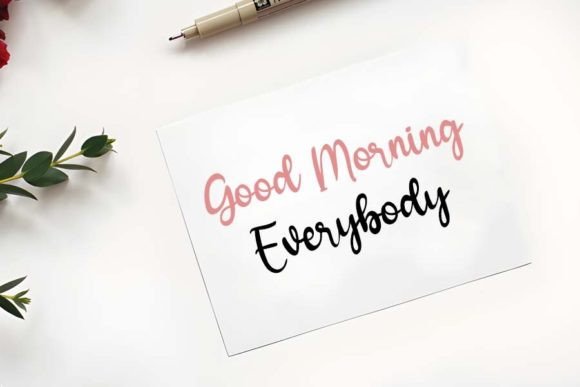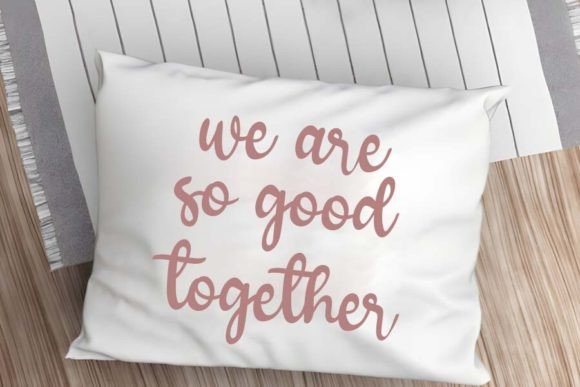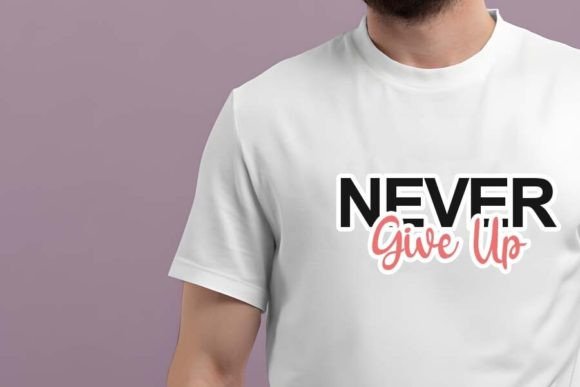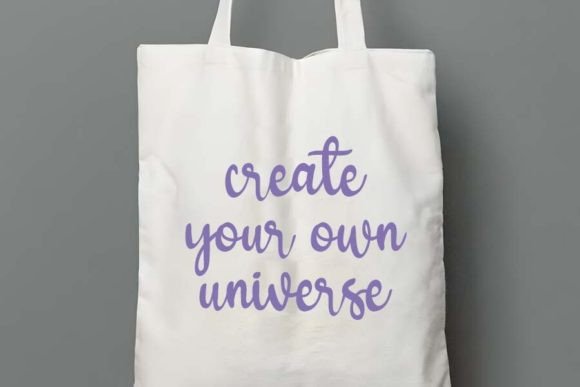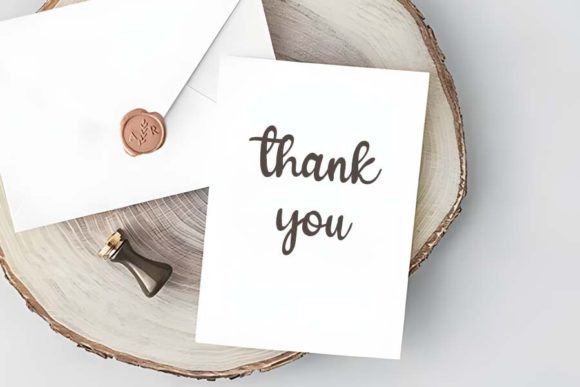
Introduction to Saint Love Font
Have you ever been working on a creative project, pouring your heart and soul into every detail, only to feel like something is missing? That’s when you stumble upon the perfect design resource – a font that brings your ideas to life. For designers, finding that one special font can be a game-changer. And, for many, that font is the Saint Love Font.
This romantic and sweet calligraphy typeface has captured the hearts of designers around the world with its elegant touch and playful dance along the baseline. With its versatility and charm, the Saint Love Font is the perfect choice for creating eye-catching logos, branding, and quotes that truly stand out. Whether you’re working on a personal project or a client’s design, this font is sure to add that extra sparkle that makes your work shine.
Key Features of Saint Love Font
- Includes a range of font styles, from casual to elegant, to suit various design needs.
- Unique characteristics include a mix of modern and vintage elements, adding a touch of sophistication to any design.
Honest Review: Saint Love Font
- What works well: ✨ The font is highly customizable and can be easily used for various design purposes, from logos to social media graphics.
- What works well: ✨ The high-quality design of the font ensures that it looks great on both digital and print media.
However, there are a few limitations to consider. ⚠️ The font is not suitable for all types of projects, especially those that require a bold or dramatic look. Additionally, the font may not be as versatile as some other fonts on the market.
Overall, I’m impressed with the Saint Love Font and would recommend it to designers who are looking for a high-quality, elegant font for their creative projects. With its transparent background and customizable design, it’s a great resource to have in your design library.
Saint Love Font is perfect for a variety of creative projects, including wedding invitations, business cards, and social media graphics. Its elegant style makes it suitable for any design that requires a touch of sophistication and class.
The Saint Love Font is a high-quality font designed to provide a unique and stylish look for your creative project. It has been optimized for clear readability and is suitable for use in a wide range of font sizes and styles.